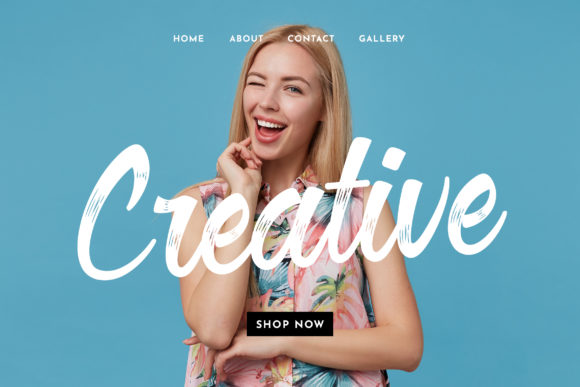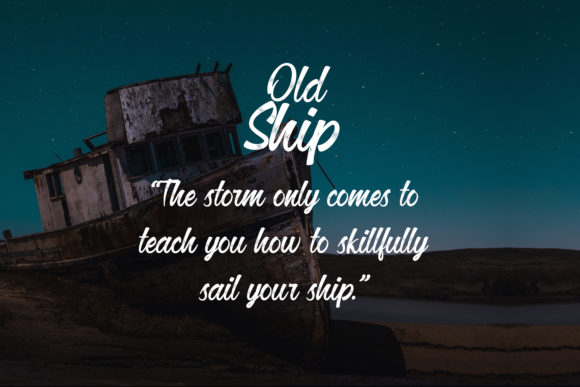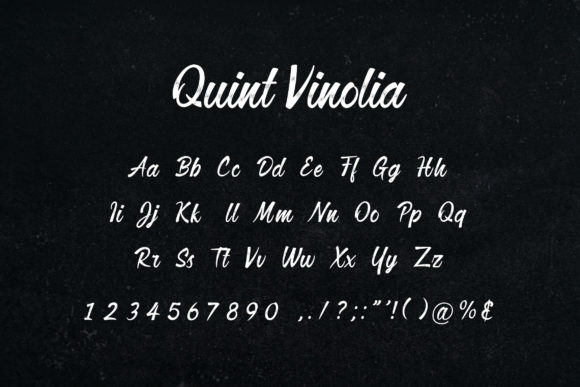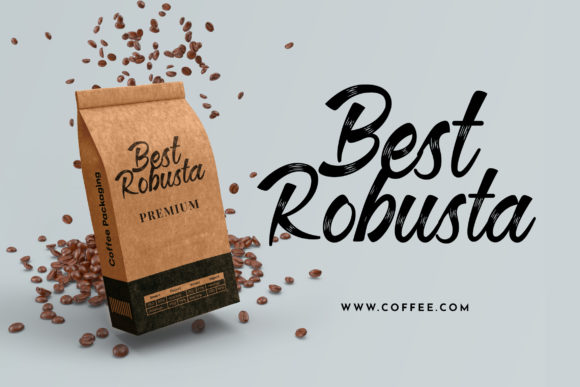
Introduction to Quint Vinolia Font
Have you ever been working on a creative project, pouring your heart and soul into it, only to feel like something is missing? A design resource that can elevate your entire aesthetic and bring your vision to life is just what you need. For designers seeking that perfect touch, the Quint Vinolia Font is a game-changer.
This delicate brushed handwritten font boasts beautiful and well-balanced characters, making it a versatile choice for a wide range of designs. Its high-quality typography ensures that your creative projects stand out from the crowd. Whether you’re working on a digital design or a print project, the Quint Vinolia Font is a valuable addition to your toolkit.
Key Features of Quint Vinolia Font
- Quint Vinolia Font is designed in a modern, elegant style, making it suitable for a wide range of creative projects.
- Supports a variety of languages, including Latin, Cyrillic, and Greek alphabets, catering to diverse design needs.
Honest Review: Quint Vinolia Font
I recently stumbled upon the Quint Vinolia Font, and I must say it’s a great addition to my design resource library. This free download is perfect for creative projects where you need a elegant and sophisticated font.
- ✨ High-quality design: The Quint Vinolia Font boasts a clean and modern design that’s perfect for any project.
- ✨ Transparent background: This makes it easy to use the font on any background without worrying about compatibility issues.
- ✨ Versatile: The Quint Vinolia Font is suitable for a wide range of creative projects, from business cards to brochures.
- ⚠️ Limited font sizes: While the font is high-quality, it’s limited to a few font sizes, which may not be ideal for projects that require extensive font manipulation.
- ⚠️ Not suitable for body text: Due to its elegant design, the Quint Vinolia Font is best used for headings and titles, rather than body text.
Overall, I’m impressed with the Quint Vinolia Font. It’s a great addition to my design library, and I’m sure it will be useful for many of my creative projects. While it has its limitations, the high-quality design and transparent background make it a valuable resource for any designer.
Tips for Getting the Most Out of Quint Vinolia Font
To get the most out of the Quint Vinolia Font, experiment with different font sizes, colors, and combinations. You can also use it in conjunction with other design elements to create a unique visual identity.
Common Use Cases for Quint Vinolia Font
The Quint Vinolia Font is suitable for a wide range of creative projects, including logos, branding materials, social media graphics, and advertising materials. Its high-quality design and transparent background make it an ideal choice for designers and non-designers alike.